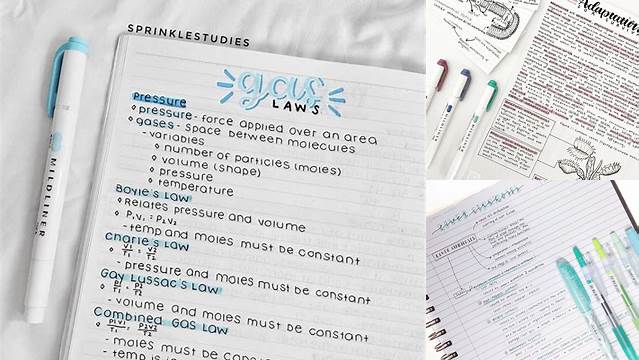
Aesthetic Fonts For Notes: Make Your Notes Beautiful
Creating aesthetic notes isn't just about the content; it's also about the presentation. Choosing the right font can transform your notes from mundane to magnificent. Whether you're a student, a creative, or just someone who loves beautiful handwriting, selecting the perfect font is crucial. Let's dive into the world of fonts and discover how to make your notes visually stunning!
1. Understanding the Importance of Fonts in Note-Taking
Guys, let's be real, the fonts you use in your notes can seriously impact how you feel about them. Imagine jotting down brilliant ideas, but the font looks like a ransom note. Not cool, right? The right font makes your notes easier to read, more engaging, and, most importantly, more aesthetically pleasing. Using aesthetic fonts for notes can even boost your motivation to study or review your work. Think about it – when something looks good, you're more likely to engage with it. A beautiful font can transform your notes into a piece of art, making the learning process a whole lot more enjoyable. So, it's not just about the information; it's about how you present it. The perfect font can highlight key points, create visual hierarchy, and add a personal touch that reflects your style. Choosing the right aesthetic fonts for notes is an investment in your learning and creative process, making every page a visual treat.
2. Best Serif Fonts for Aesthetic Notes
Okay, so let’s talk serif fonts. These are those classic-looking fonts with little feet (or serifs) at the end of the strokes. They bring a sense of elegance and tradition to your notes. Think of fonts like Times New Roman or Georgia, but we're going to explore some even cooler options! For aesthetic notes, serif fonts like Playfair Display or Merriweather can add a touch of sophistication. Playfair Display, for example, is a gorgeous font that’s perfect for headings or titles, giving your notes a polished, professional feel. Merriweather, on the other hand, is super readable and works well for body text, making it a versatile choice for all kinds of note-taking. When you're aiming for a timeless and refined look, serifs are your best friends. They’re especially great for subjects like literature, history, or anything where you want to evoke a sense of classic beauty. So, next time you're choosing fonts, give serifs a shot – they might just be the secret ingredient to making your notes look absolutely amazing.
3. Top Sans-Serif Fonts for Modern Notes
Now, let’s dive into the world of sans-serif fonts! These fonts are the sleek, modern cousins of serif fonts, ditching the little feet for a clean, minimalist look. Think Helvetica or Arial, but we're aiming for something with a bit more pizzazz for our aesthetic notes. Sans-serif fonts are fantastic for creating a contemporary and straightforward feel. Fonts like Montserrat or Open Sans are super popular for their readability and stylish simplicity. Montserrat, with its geometric vibe, can make your headings pop, while Open Sans is a fantastic workhorse for body text, ensuring everything is clear and easy to read. Using sans-serif fonts in your notes gives them a crisp, uncluttered appearance, perfect for subjects like science, technology, or anything that benefits from a modern touch. If you're going for a look that's clean, efficient, and visually appealing, sans-serif fonts are the way to go. They strike a great balance between style and functionality, making your notes both beautiful and practical.
4. Calligraphy Fonts for Elegant Note-Taking
Alright, let’s get fancy with calligraphy fonts! If you’re looking to add a touch of elegance and personality to your notes, calligraphy fonts are where it’s at. These fonts mimic the beautiful strokes of hand-lettering, giving your notes a unique and artistic flair. But, a word of caution: use them sparingly! Too much calligraphy can make your notes hard to read. Think of them as the sparkle on your notes – a little goes a long way. Fonts like Brush Script or Pacifico can add a lovely, flowing touch to headings or special sections. Imagine using a calligraphy font for chapter titles or important quotes – it instantly elevates the look and feel of your notes. Just make sure the calligraphy font you choose is still legible. The goal is to enhance your notes, not to make them a puzzle to decipher. When used thoughtfully, calligraphy fonts can transform your notes into a work of art, adding a personal and sophisticated touch.
5. Cursive Fonts to Add a Personal Touch
Hey there! Let's chat about cursive fonts. These are the fonts that look like handwritten script, bringing a personal and intimate feel to your notes. Using cursive fonts is a fantastic way to inject some character and warmth into your pages, making them feel less like sterile documents and more like heartfelt creations. However, similar to calligraphy fonts, it’s essential to use cursive fonts judiciously. Overdoing it can make your notes difficult to read, defeating the purpose of good note-taking. Fonts like Dancing Script or Great Vibes can add a beautiful, flowing touch to headings or short quotes. They’re perfect for highlighting key points or adding a stylistic flourish to your notes. When selecting a cursive font, readability should be your top priority. Choose fonts that are clear and easy to decipher, even at a glance. Used strategically, cursive fonts can turn your notes into a reflection of your personality, making them not only informative but also visually appealing and uniquely yours.
6. Monospace Fonts for a Unique Aesthetic
Okay, guys, let's talk about monospace fonts. These fonts are a bit quirky and unique, and they can bring a cool, retro vibe to your notes. What sets monospace fonts apart is that every character takes up the same amount of horizontal space, which gives them a distinctive, almost typewriter-like appearance. While they might not be the go-to choice for everyone, monospace fonts can be super effective for certain uses, especially if you're aiming for a consistent and uniform look. Think Courier New or Consolas, but there are also more stylish options out there like Fira Mono or Roboto Mono. These fonts can be fantastic for coding notes, technical documentation, or anything where you want to highlight blocks of text. They create a visual separation that can be really helpful for clarity. Just be mindful of readability – using too much monospace can strain the eyes. When used thoughtfully, monospace fonts can add a unique aesthetic to your notes, setting them apart and making them visually interesting.
7. Display Fonts for Eye-Catching Titles
Alright, let’s dive into the world of display fonts! These are the rockstars of the font world, designed to grab attention and make a statement. Display fonts are perfect for titles and headings, where you want to make a bold visual impact. They come in all sorts of styles, from elegant and sophisticated to playful and quirky, so there’s something for every aesthetic. Think of them as the headlines of your notes – they set the tone and draw the eye. Fonts like Bebas Neue or Oswald are great for a modern, clean look, while something like Lobster or Pacifico can add a touch of personality and flair. However, the key with display fonts is to use them sparingly. They’re meant to stand out, so using them for body text can be overwhelming and hard to read. Save them for your titles, headings, or any other elements you want to emphasize. When used correctly, display fonts can transform your notes from plain to captivating, making them visually engaging and a joy to read.
8. Combining Fonts: The Art of Typography
Hey guys, let's talk about the art of combining fonts. This is where the magic really happens in creating aesthetic notes! Choosing the right fonts is important, but knowing how to pair them together can take your notes to the next level. Think of it like putting together an outfit – you want pieces that complement each other and create a cohesive look. The general rule of thumb is to pair a serif font with a sans-serif font. This creates a visual contrast that's pleasing to the eye. For example, you might use a serif font like Playfair Display for your headings and a sans-serif font like Open Sans for your body text. This combination provides a nice balance of elegance and readability. Another tip is to limit yourself to two or three fonts per page. Too many fonts can make your notes look cluttered and overwhelming. Keep it simple and focus on creating a harmonious look. When you master the art of font pairing, your notes will not only be informative but also visually stunning!
9. Free Font Resources for Aesthetic Notes
Okay, let's talk about where to find all these amazing fonts without breaking the bank! There are tons of resources out there for free fonts, and you don't need to spend a fortune to make your notes look fantastic. One of the best places to start is Google Fonts. It's a treasure trove of high-quality fonts that are completely free to use. You can find everything from classic serifs to modern sans-serifs, and even some cool display fonts. Another great resource is DaFont. It has a huge selection of fonts, including calligraphy and cursive styles, but just be sure to check the licensing terms, as some fonts are free for personal use only. Websites like Font Squirrel and Creative Market (which often has freebies) are also worth checking out. The key is to explore and experiment. Download a few fonts that catch your eye and see how they look in your notes. With so many free resources available, you can create stunning aesthetic notes without spending a single penny. Happy font hunting!
25. Font Resources for Different Platforms (iOS, Android, Windows, Mac)
Hey guys, let's make sure you know where to find awesome fonts no matter what device you're using! Finding the right fonts for aesthetic notes can vary a bit depending on whether you're on iOS, Android, Windows, or Mac. For iOS and Android, apps like iFont or Fonty can help you install custom fonts directly onto your device. You can then use these fonts in apps that support custom fonts, like note-taking apps or design tools. On Windows and Mac, installing fonts is typically straightforward: you download the font files (usually in OTF or TTF format), double-click them, and then click